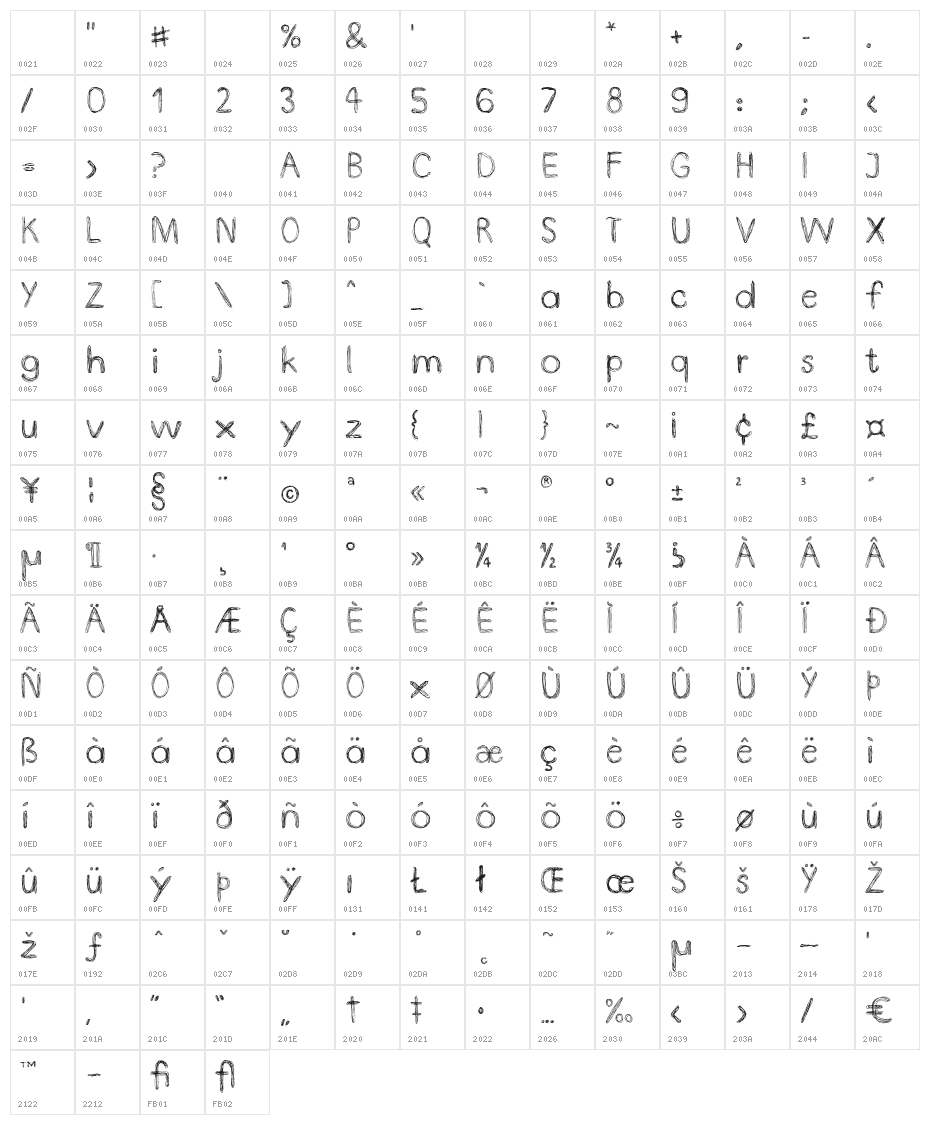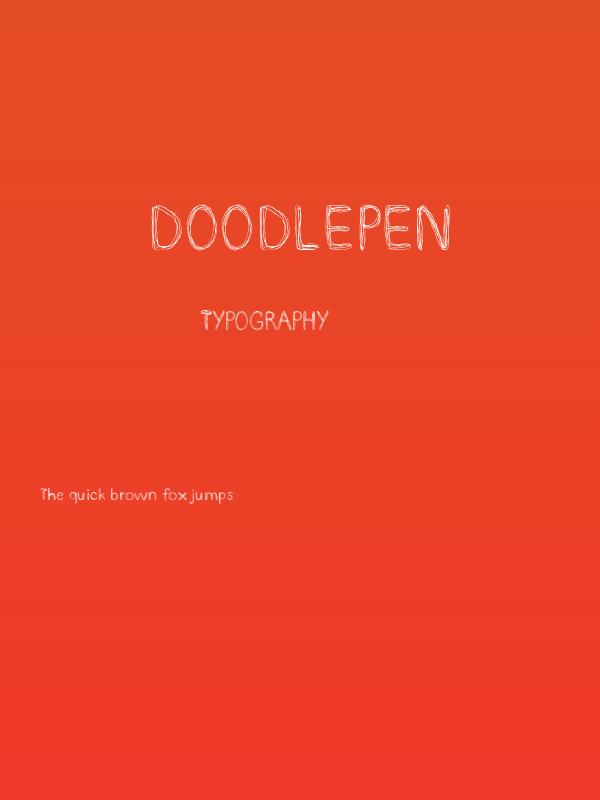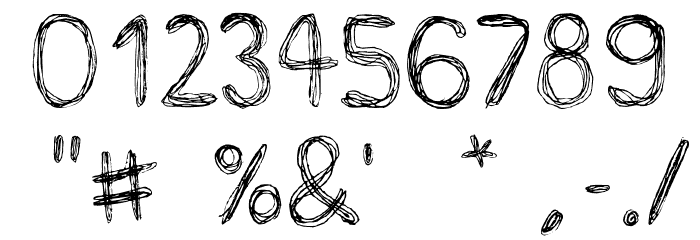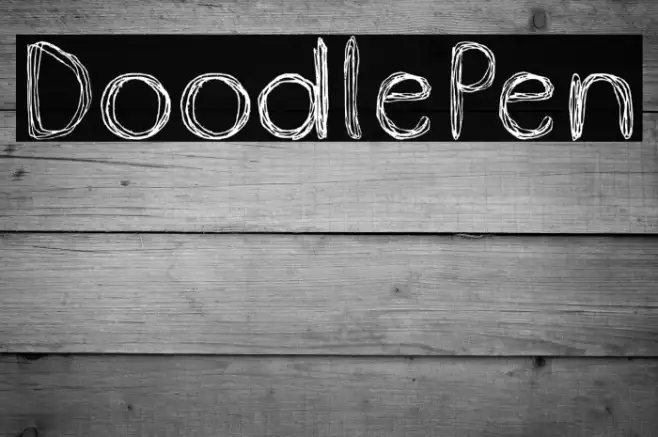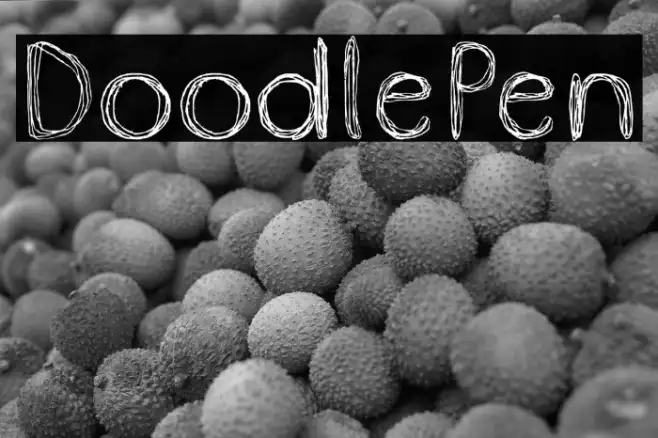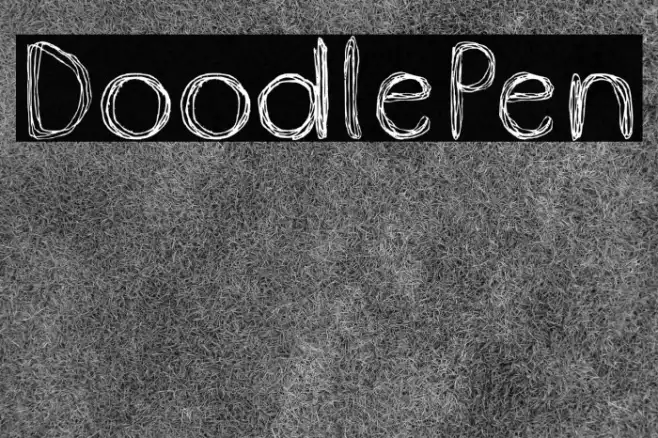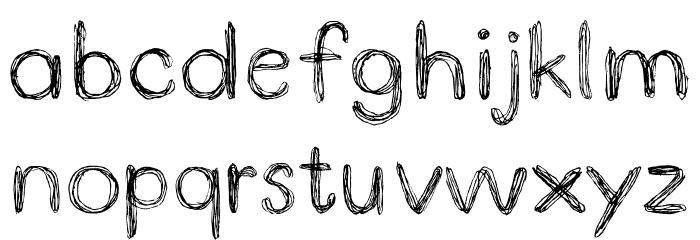
DoodlePen Font
DoodlePen Description
This font exudes a playful and artistic vibe, reminiscent of hand-drawn sketches with its irregular, doodle-like strokes. Each character appears as if it has been meticulously crafted with a pen, giving it a unique and personal touch. The lines are uneven, adding to the whimsical and informal style. The font maintains legibility while offering a creative flair, making it suitable for projects that require a touch of individuality and creativity. The overall appearance is casual and friendly, perfect for designs that aim to convey a sense of fun and spontaneity.
| Proposed Projects | Ideal for children's books, creative posters, casual invitations, and artistic branding. |